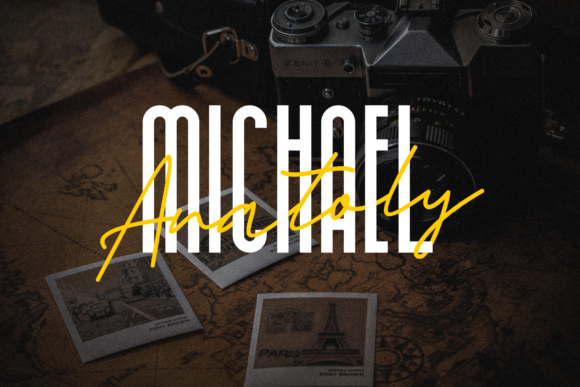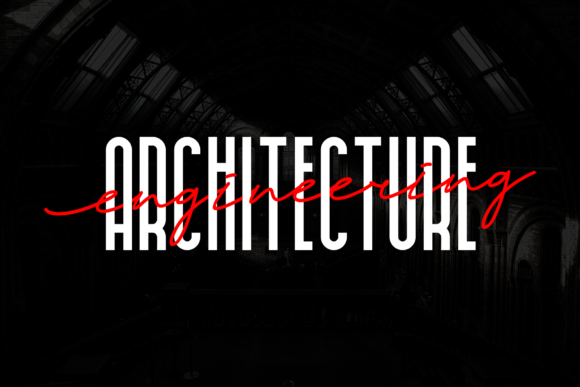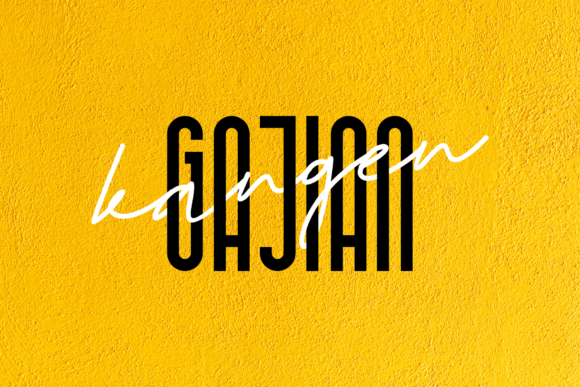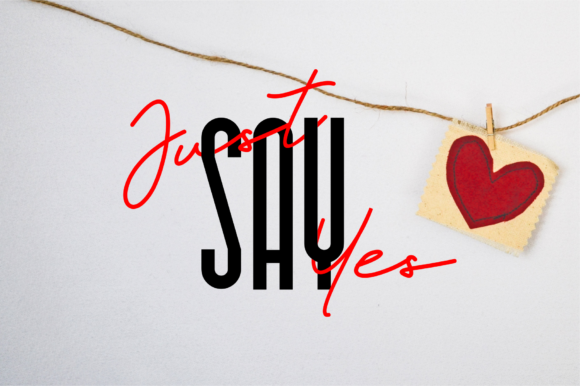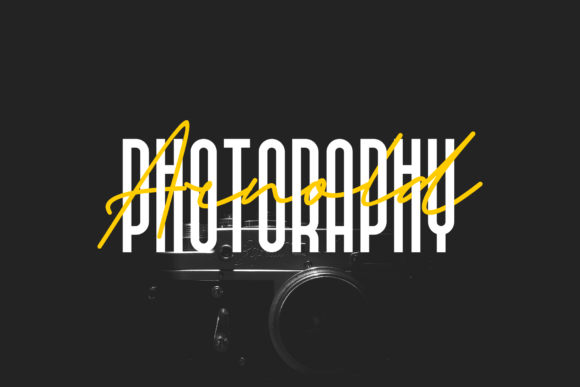
Imam Sahirah Font
About Imam Sahirah Font
Imam Sahirah is a classy and contemporary pair of script and sans fonts. With a stylish didot-style serif font and a free-flowing, expressive script companion, Imam Sahirah offers beautiful typographic harmony for a diversity of design projects, including logos & branding, wedding designs, social media posts, advertisements & product designs.